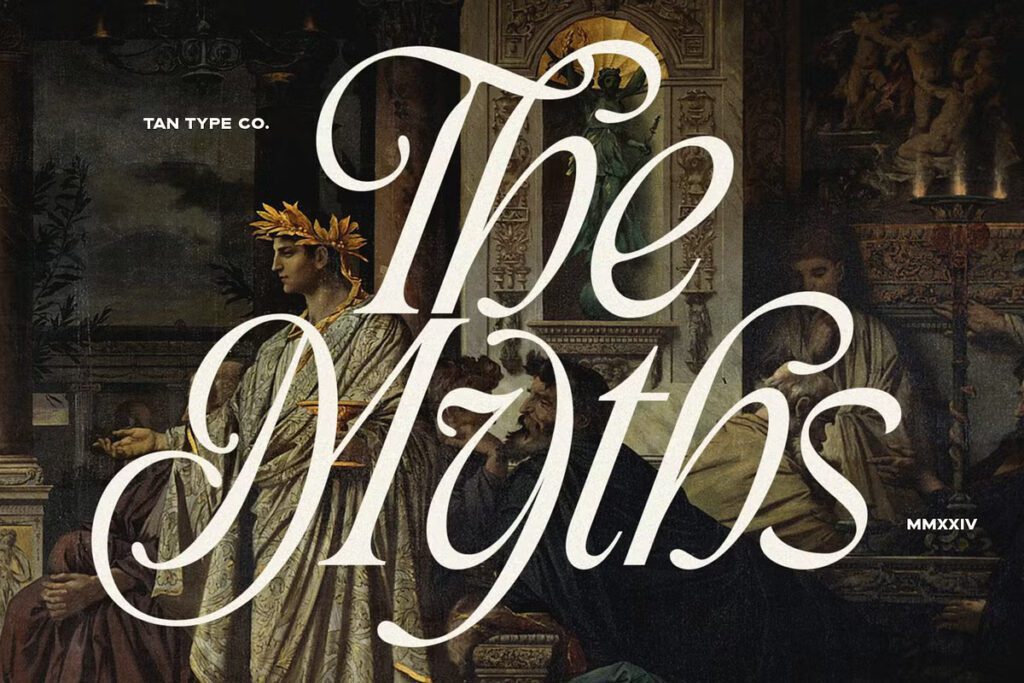
TAN – THE MYTHS: A Timeless Serif with a Romantic Touch
When it comes to classic elegance, few fonts can match the refined beauty of TAN – THE MYTHS. Designed by Tan Type Company, this serif typeface seamlessly blends timeless tradition with a modern, romantic twist. Whether you’re working on editorial layouts, logos, or branding projects, TAN – THE MYTHS will elevate your designs with its classy yet playful personality.
Why TAN – THE MYTHS Stands Out
Classic Meets Contemporary: TAN – THE MYTHS is more than just a standard serif font. Its delicate balance between classic style and modern appeal makes it perfect for designers who want to evoke elegance without sacrificing creativity.
Perfect for Various Projects: This font excels in a wide range of design projects, from editorial layouts and luxury branding to web design and packaging. Its sophisticated charm makes it an excellent choice for anything requiring a touch of timeless elegance.
Multilingual Support: With built-in multilingual support, TAN – THE MYTHS accommodates diverse language needs, making it a global favorite for designers around the world.
Key Features of TAN – THE MYTHS
Romantic and Timeless: Its classic serif structure combined with a subtle romantic flair gives this font a unique personality that is both traditional and fresh. This blend ensures that it works perfectly for both modern and vintage-inspired designs.
Elevate Your Design with TAN – THE MYTHS
For creatives seeking a font that can deliver both sophistication and fun, TAN – THE MYTHS offers the perfect solution. It’s a timeless serif that resonates with modern design trends while maintaining a romantic charm. Whether you’re working on branding, magazines, logos, or even website design, this versatile typeface will add a touch of class to your work.
TAN – THE MYTHS is a must-have font for any designer looking to combine classic elegance with modern-day style. Its versatility and distinctive character make it the ideal choice for those who want their designs to feel both sophisticated and approachable.